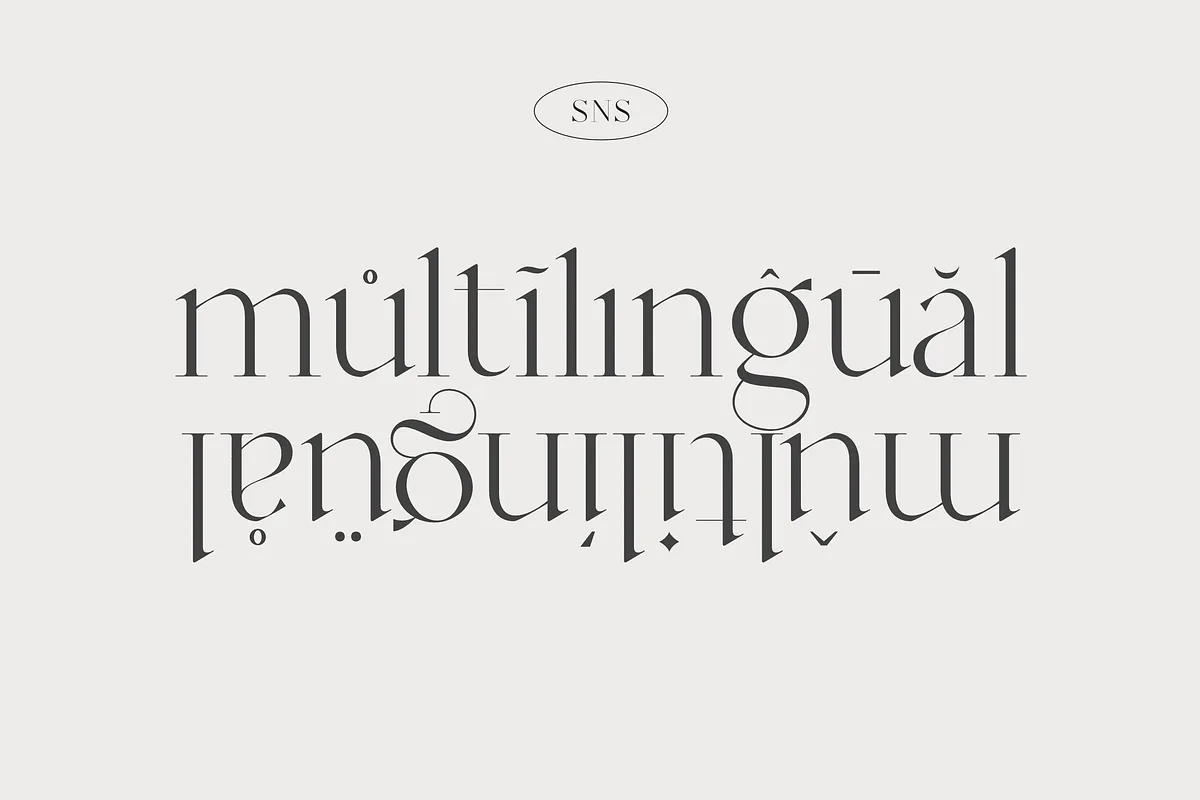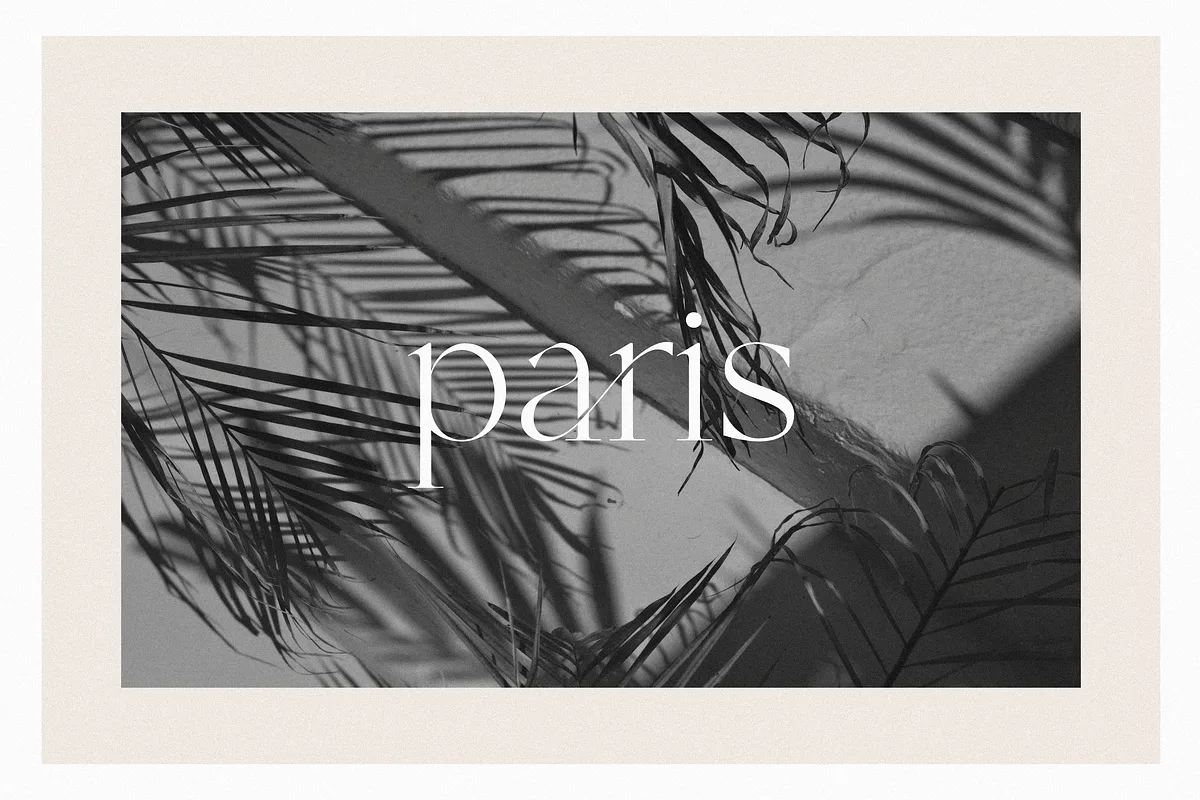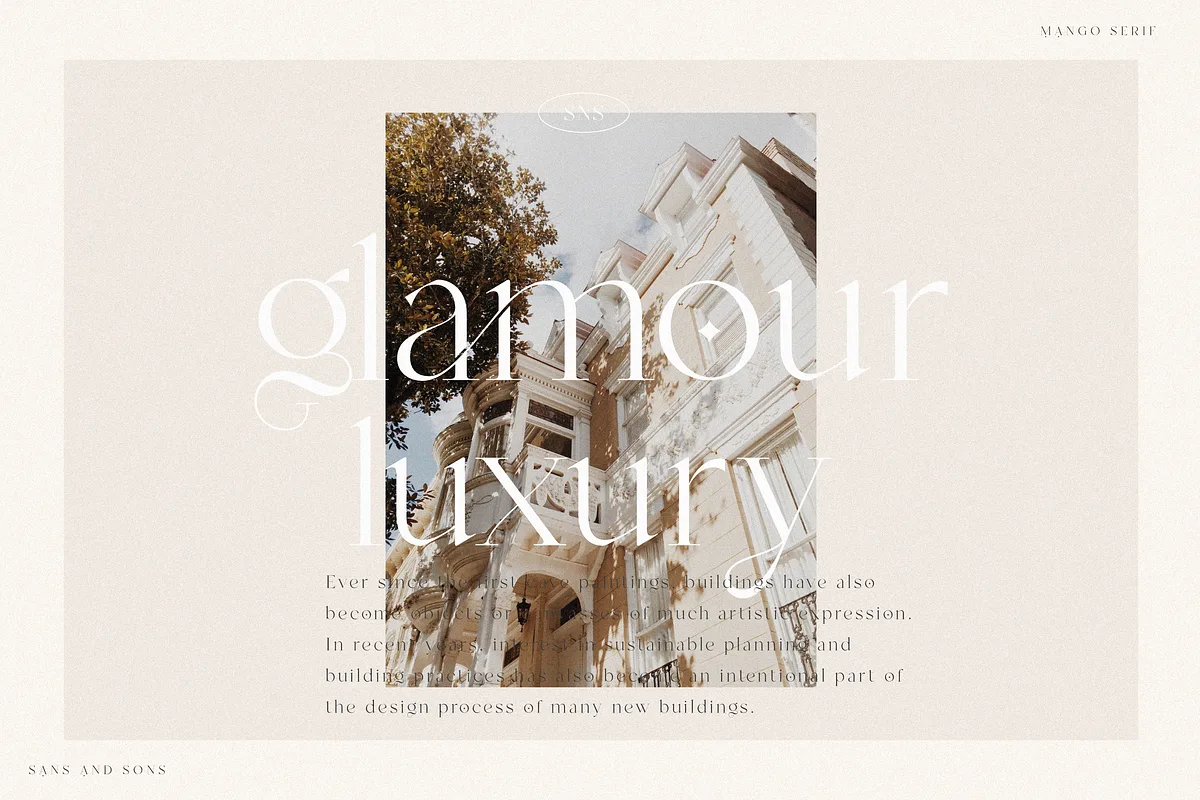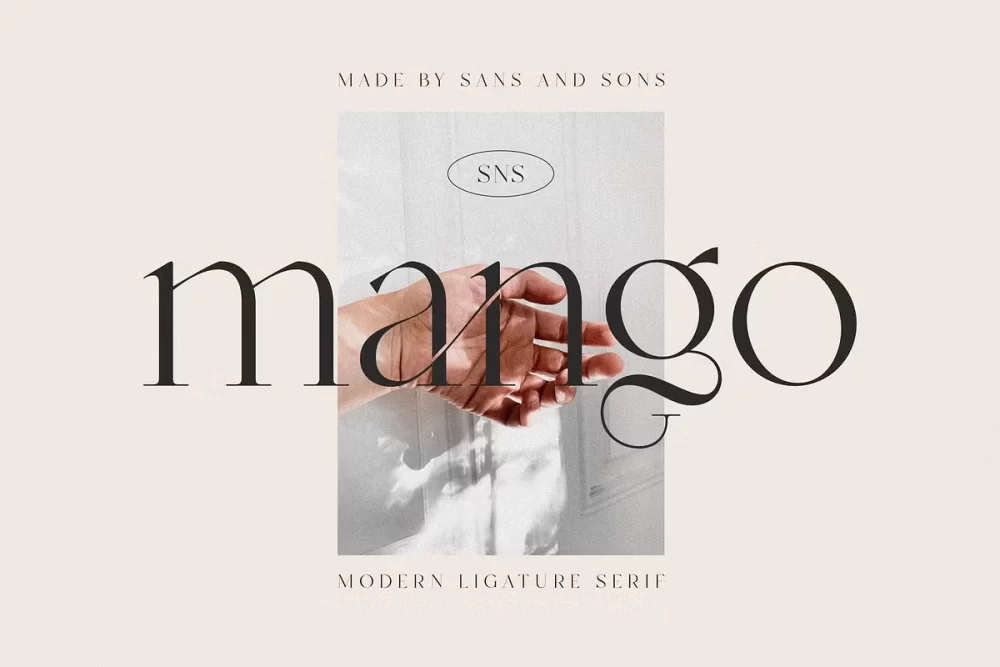
Mango – Modern Ligature Font by Sans and Sons. Introducing our new “Mango” Modern Ligature with Elegant Style this is perfect for branding, logos, invitation, masterheads and more.
- Multilanguange
- Alternates
- Ligatures